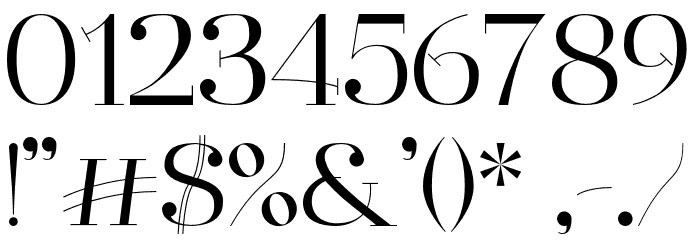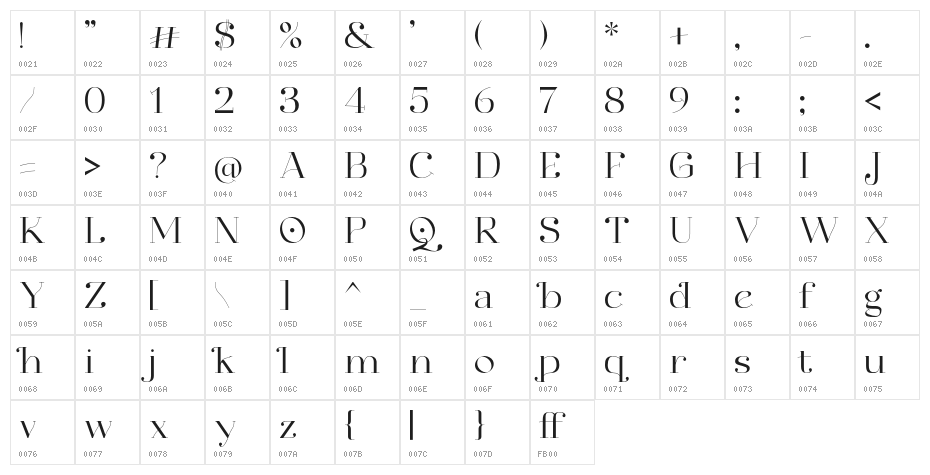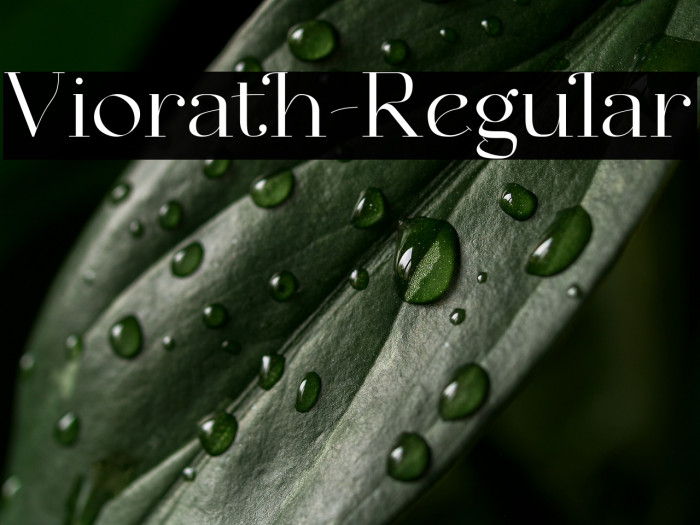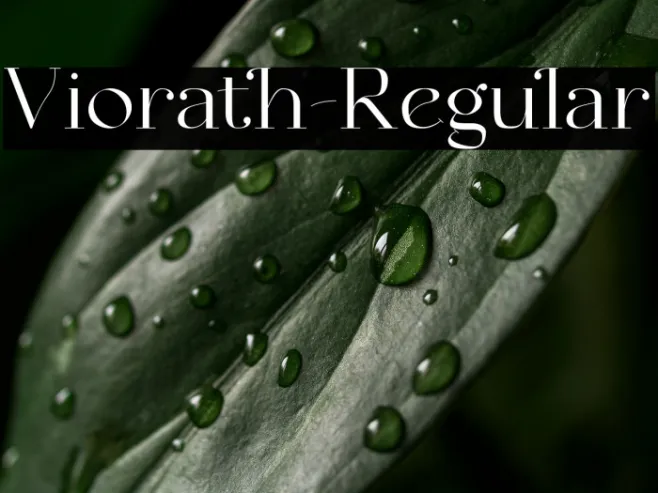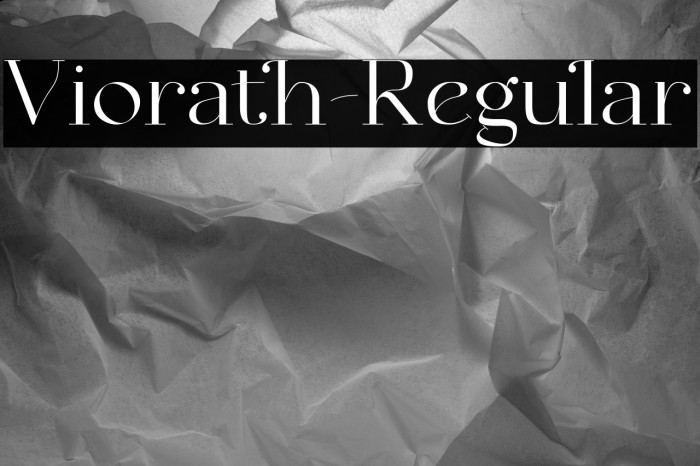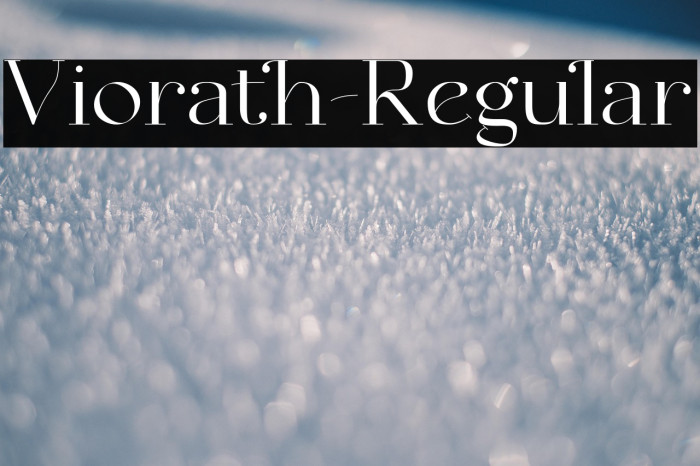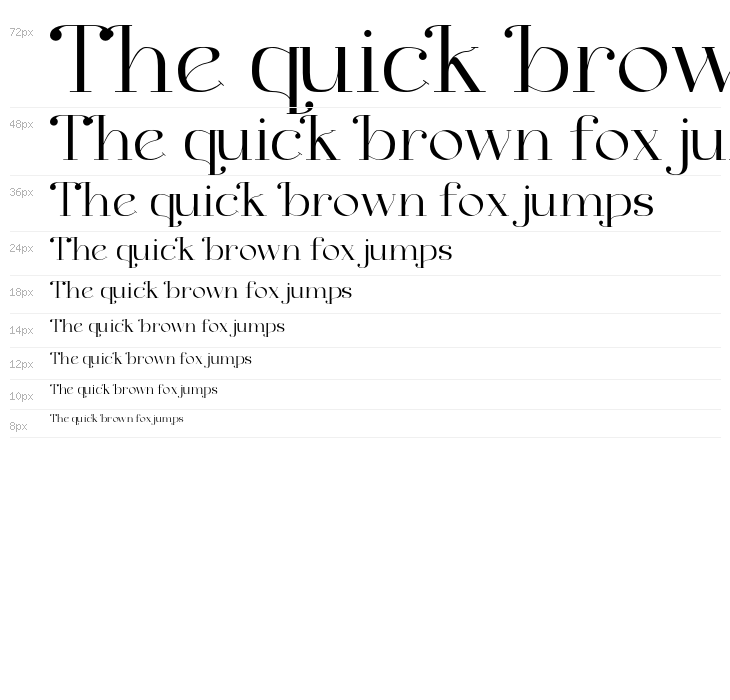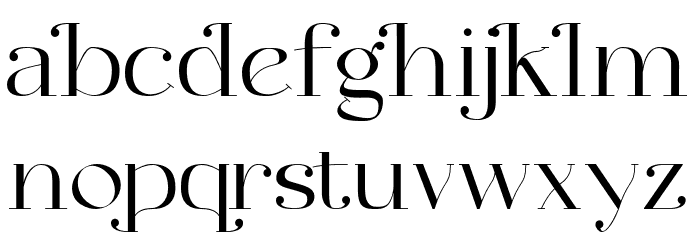
Viorath-Regular Font
Viorath-Regular Description
This font features a unique blend of elegance and modernity, characterized by its high contrast between thick and thin strokes. The letters exhibit a decorative flair with subtle curves and flourishes, particularly noticeable in characters like 'Q', 'R', and 'g'. The uppercase letters are tall and commanding, while the lowercase letters maintain a consistent style with a touch of whimsy. The numerals are distinct and stylish, complementing the overall aesthetic. Special characters are thoughtfully designed, adding to the font's versatility and charm.
| Use Case | Logos, Headlines, Artistic Posters |
| Proposed Projects | Ideal for luxury branding, editorial design, high-end packaging, and artistic posters. |